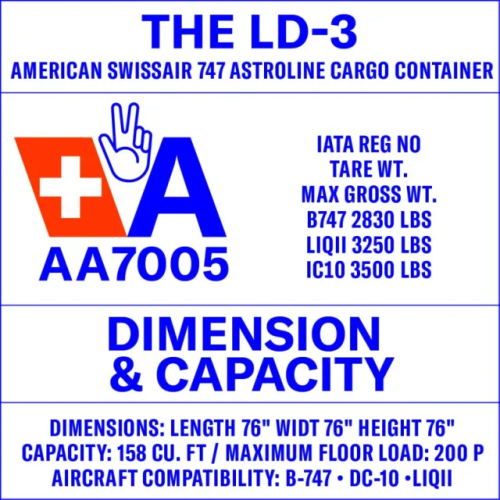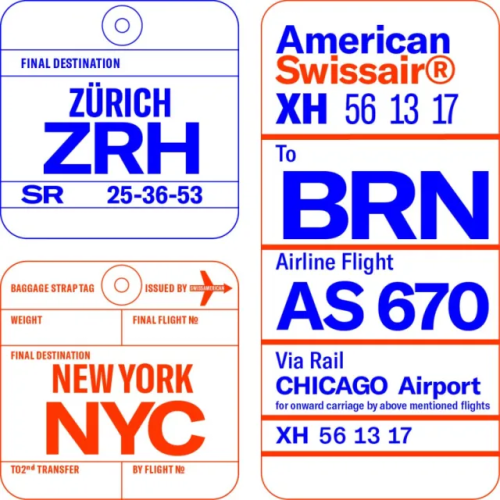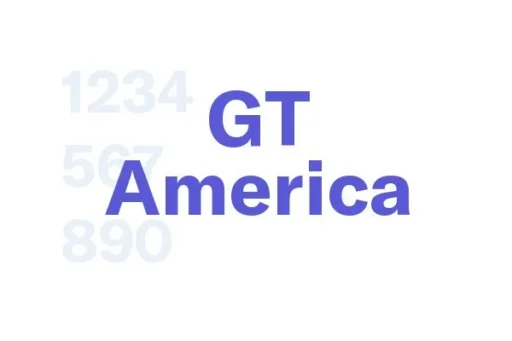
GT America Font Family
There are no compromises in the GT America sans serif font. It has simple geometric shapes and moderately modern vibes. It was released in 2016 by Grilli Type and was cr…
There are no compromises in the GT America sans serif font. It has simple geometric shapes and moderately modern vibes. It was released in 2016 by Grilli Type and was created by Noeloe Litu with help from Sebuv00c9 McLauchlan. This style is a mix of traditional American grotesques and clear Swiss art. It is a family of five widths and seven weights, and there is a single-spaced version of each. The GT America font works the same for icons, headlines, body text, and those code snippets. It has a lot of options to fit your project, and you can pick the right style all by itself.
Where GT America Font Family works best
GT America Font Family stays legible at small sizes, which makes it a strong choice for navigation, buttons and dashboards in web design and app interfaces.
Clean sans serifs like GT America Font Family are the default language of SaaS, fintech and product branding.
What is GT America Font Family good for?
GT America Font Family is a Sans Serif Fonts typeface tagged Classic, Geometric, Modern, Readable. It works well for headlines, logos, posters, social media graphics and branding projects that need a distinctive sans serif fonts look.